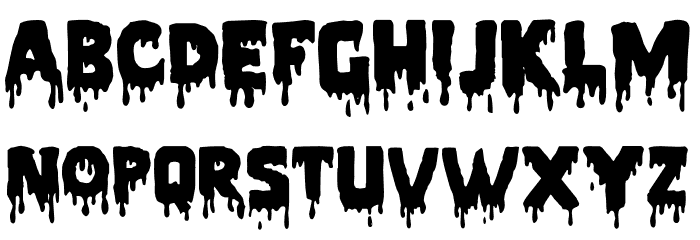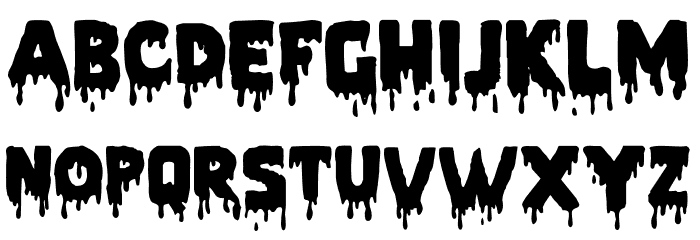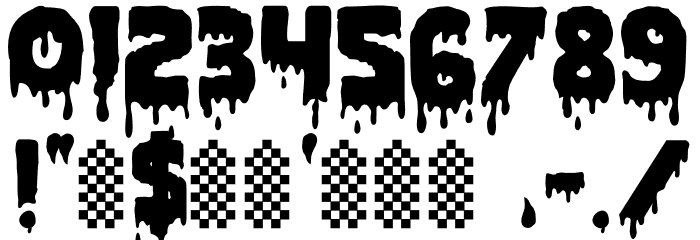
Pieces NFI Font
This font features a bold, dripping effect that gives it a unique and edgy appearance. The characters appear as if they are melting or dripping, which adds a dynamic and somewhat eerie feel. The uppercase and lowercase letters maintain a consistent style, with each character exhibiting the same dripping effect. The numbers and special characters also follow this theme, ensuring a cohesive look across all elements. This font is particularly eye-catching and would stand out in any design project that requires a bold and unconventional typeface.
A bold, dripping font with an edgy and dynamic appearance.
- Proposed Projects: Ideal for Halloween-themed designs, horror movie posters, edgy branding, or any project requiring a bold and unconventional typeface.
- Use Case: Headlines, Posters, Logos